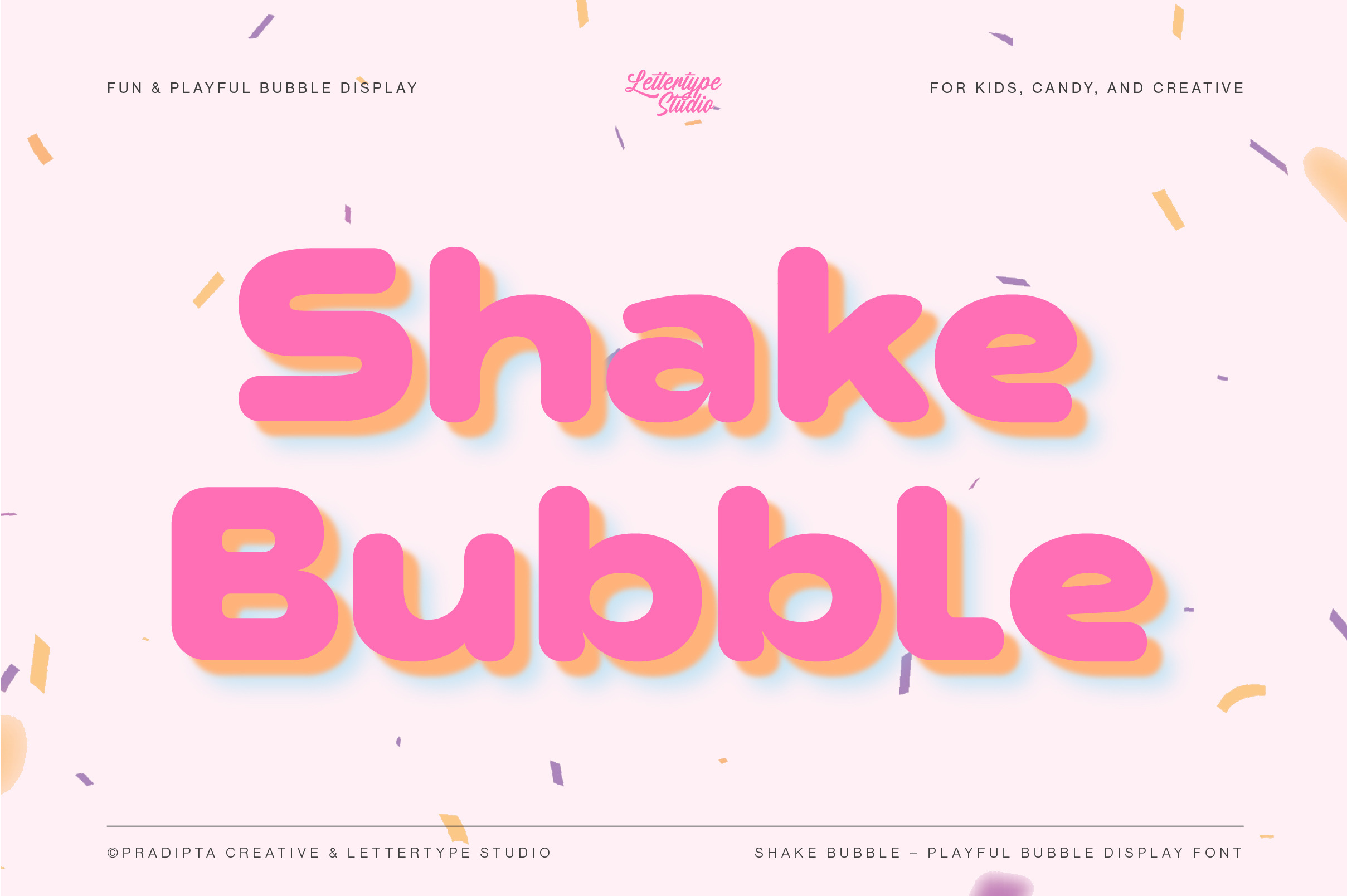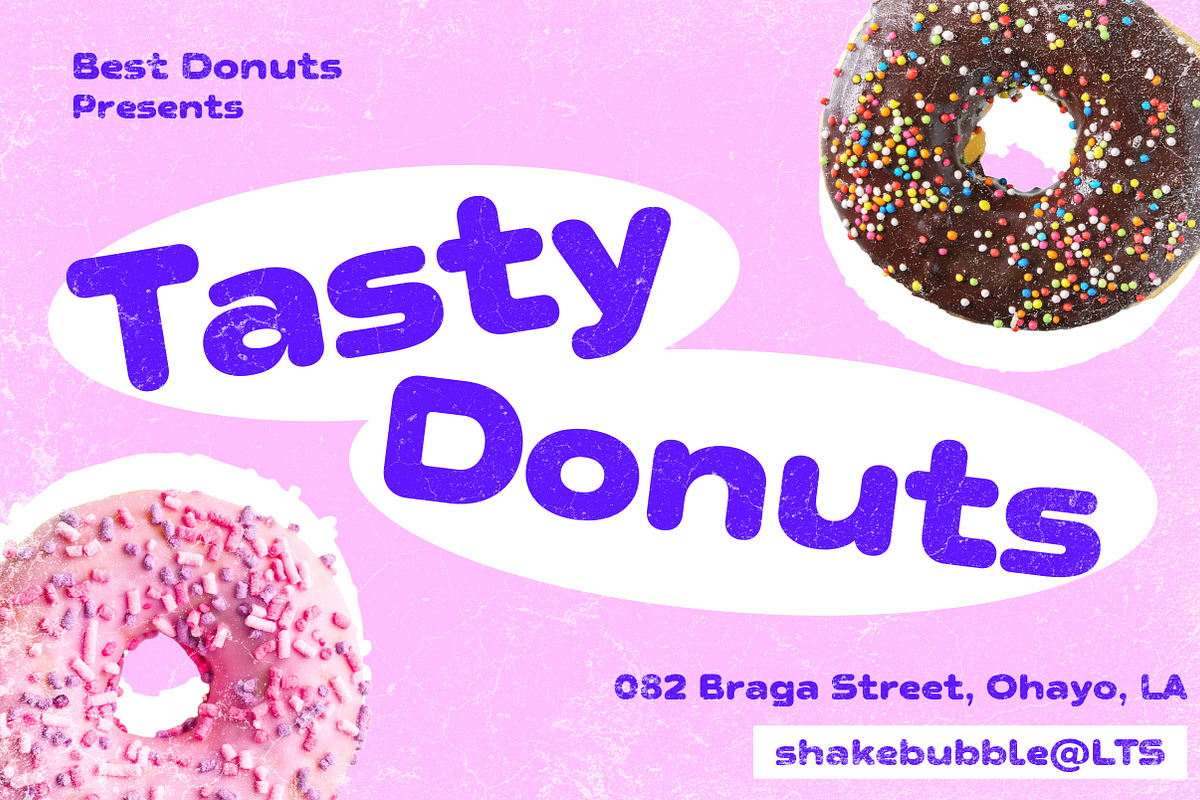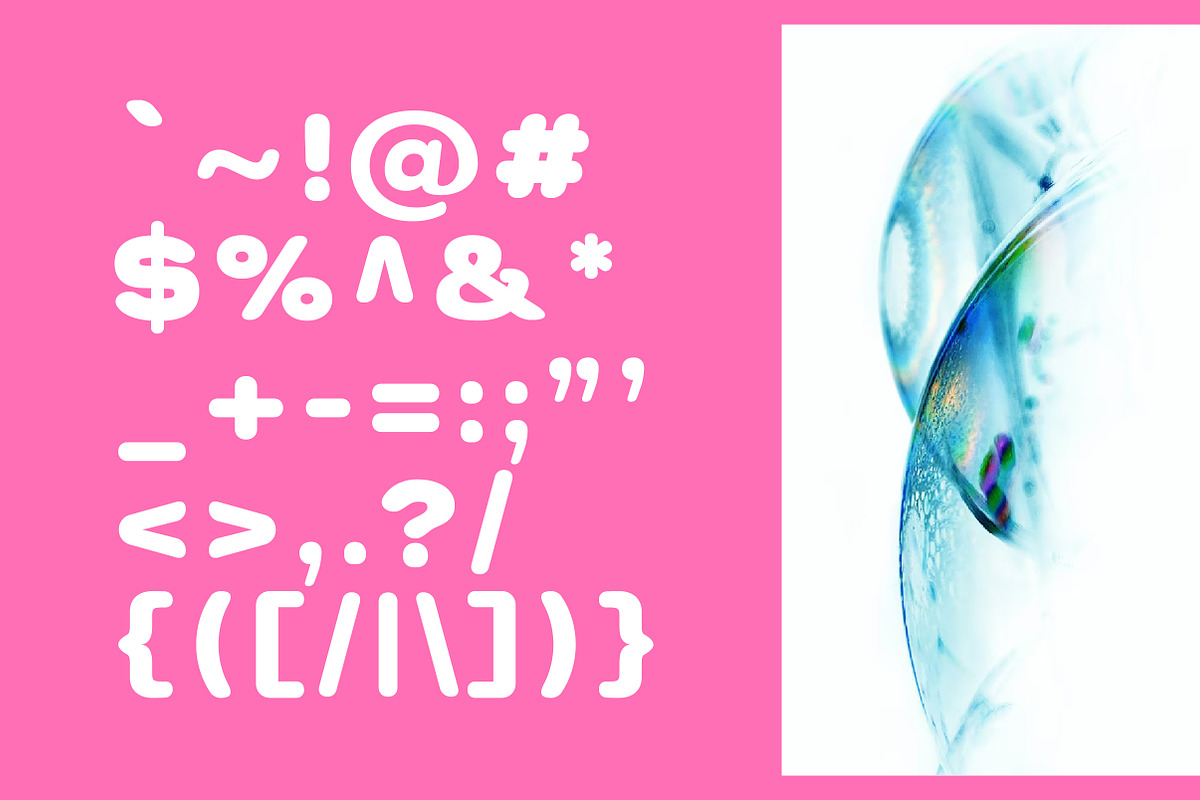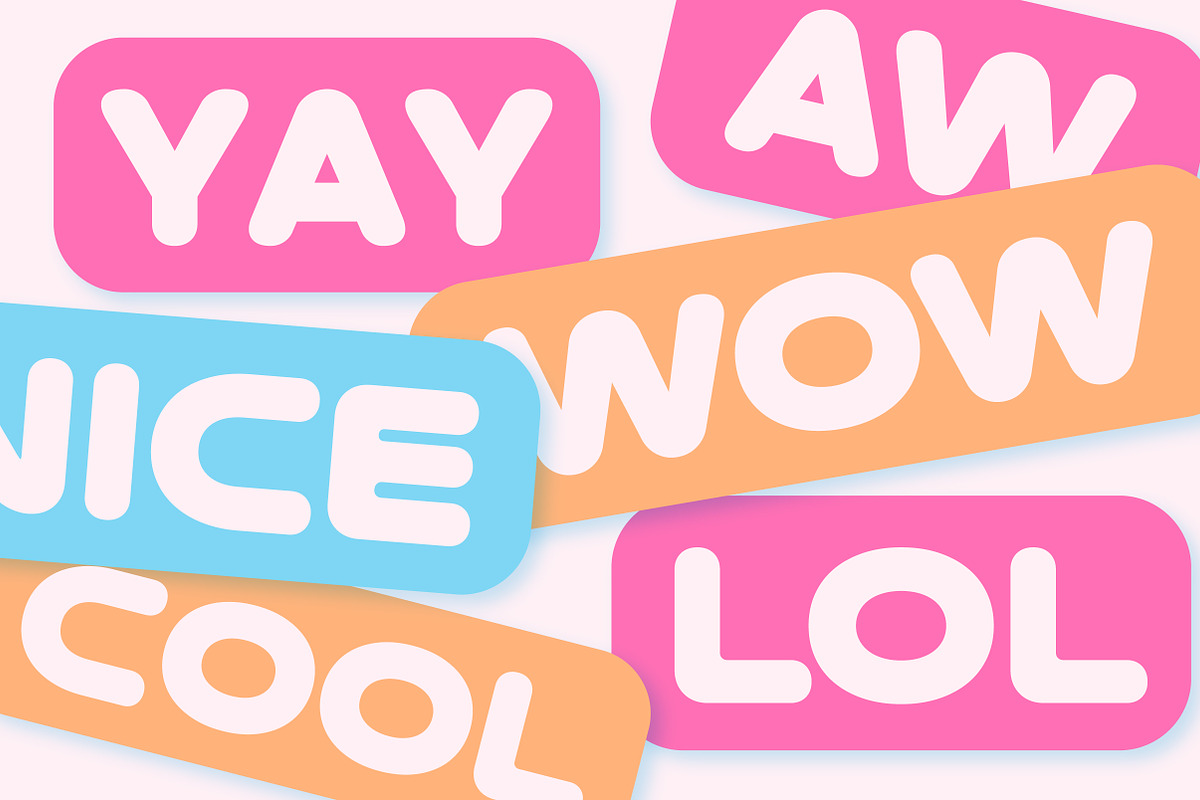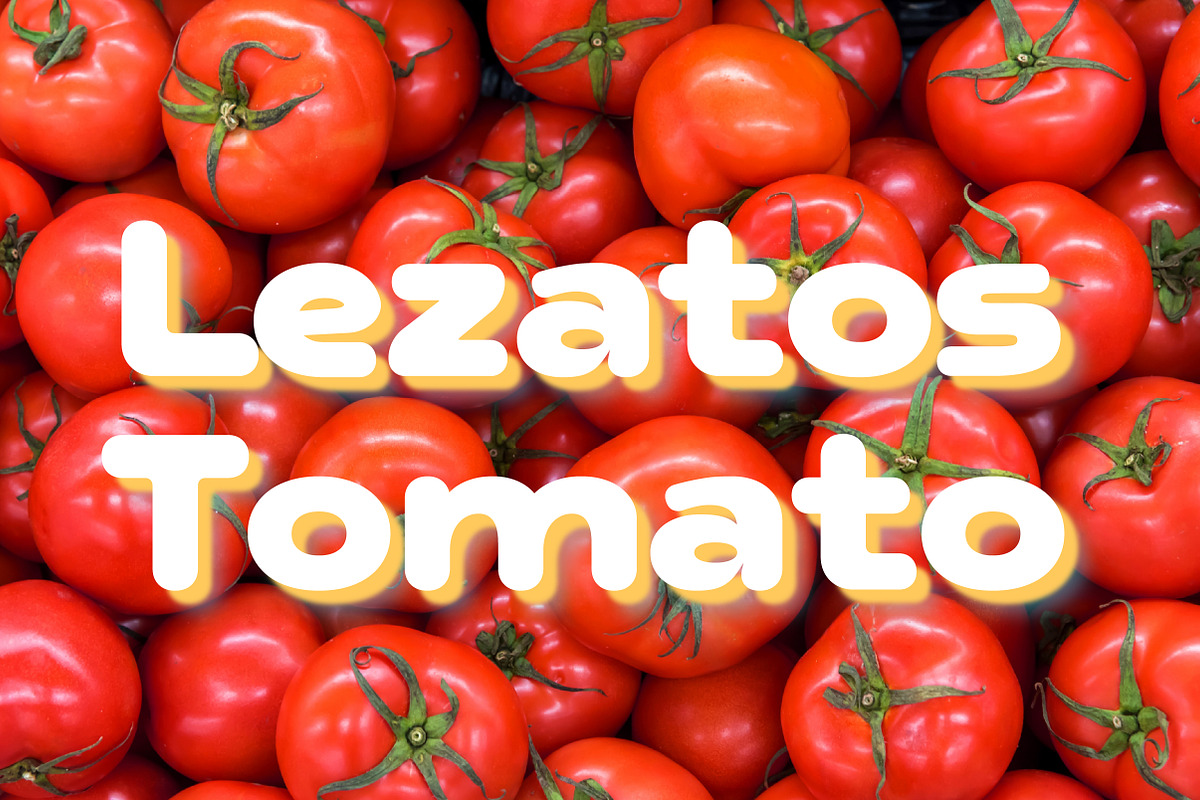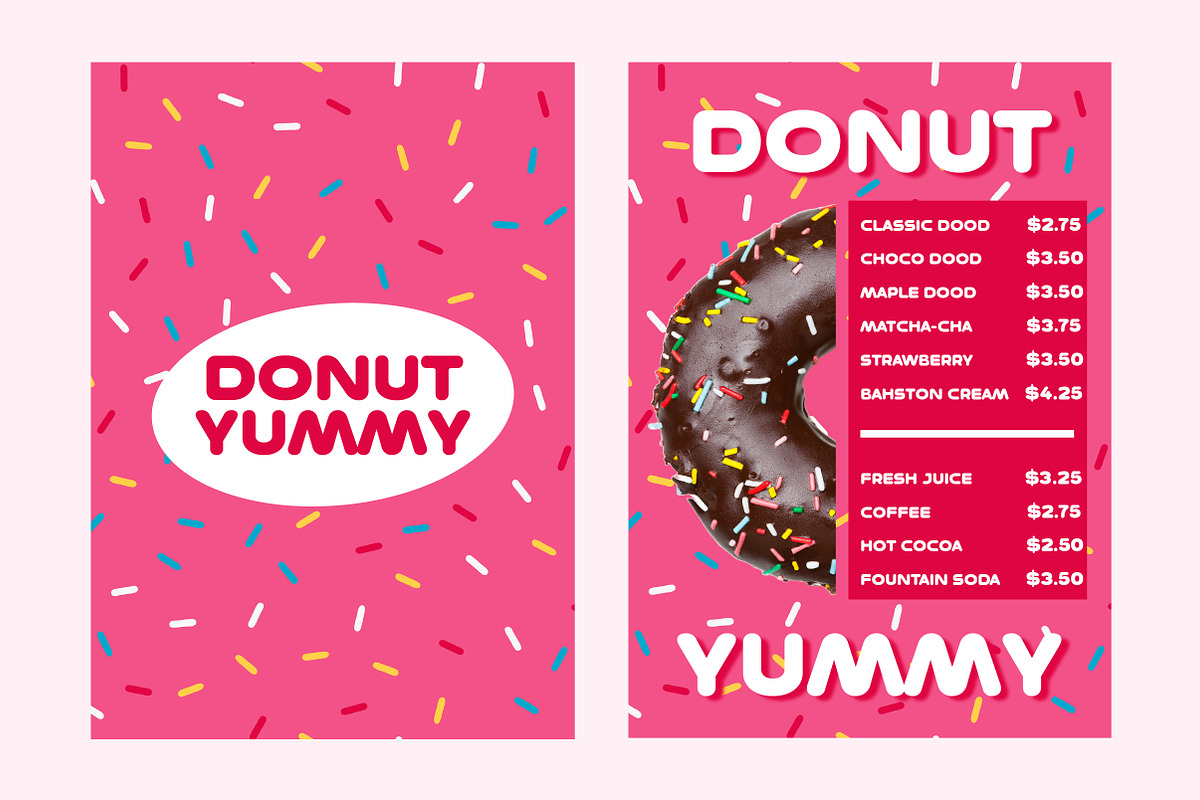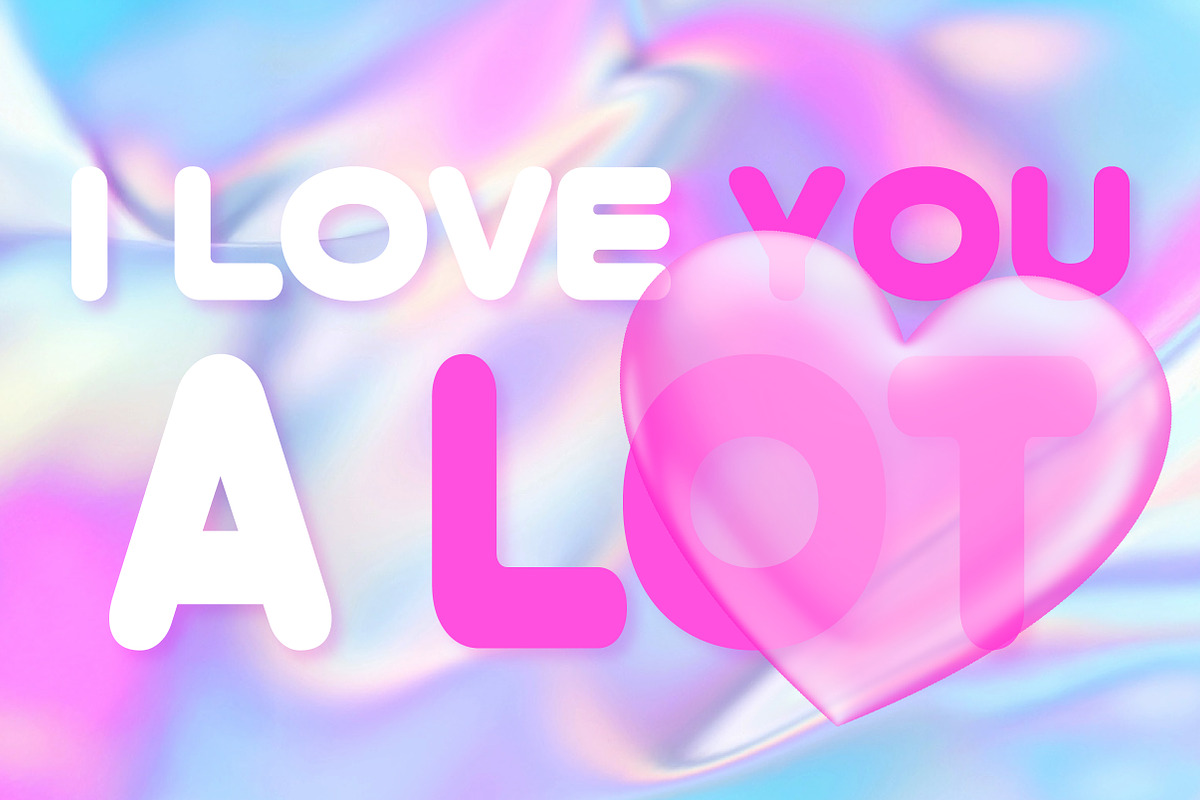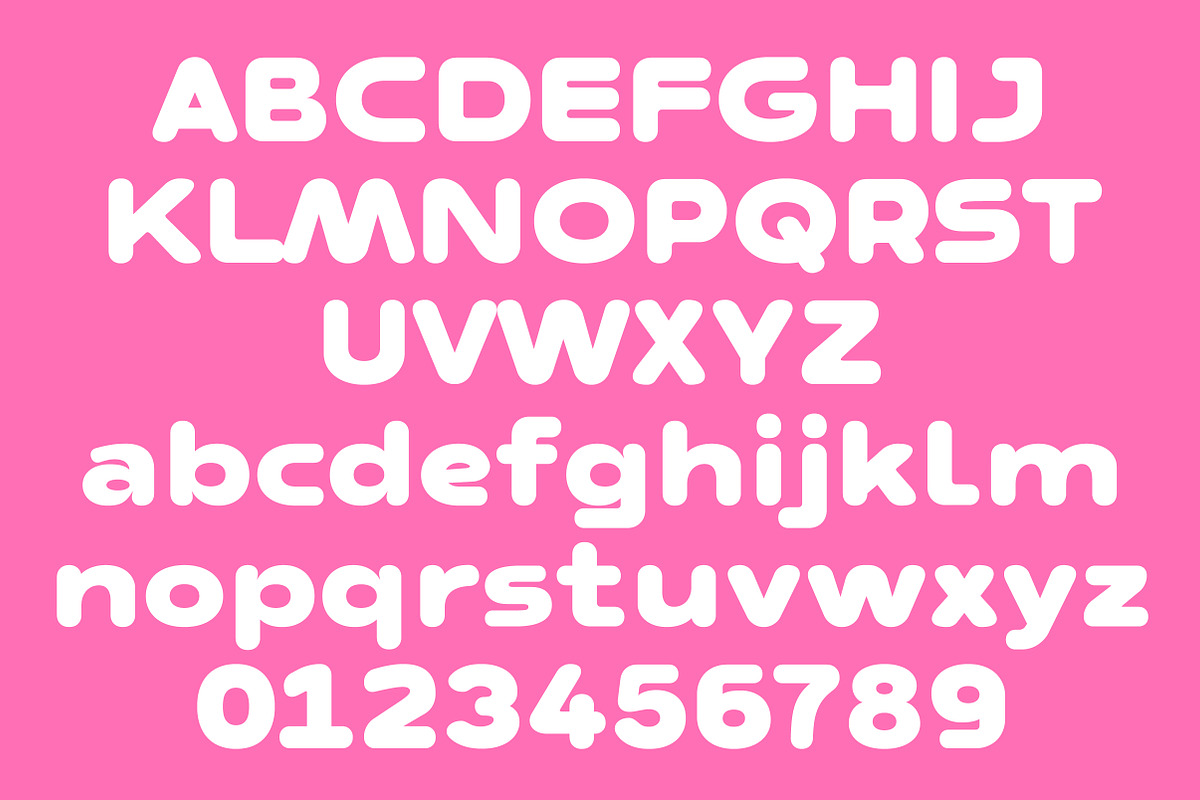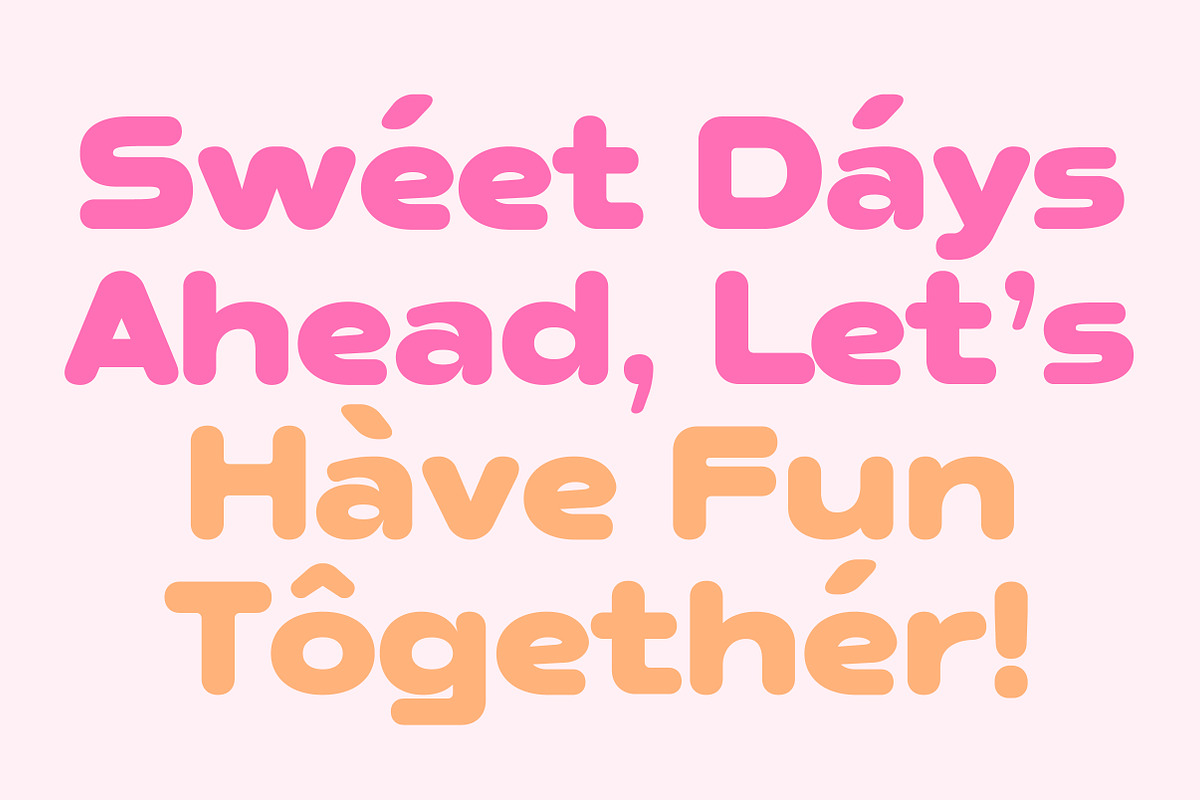
Shake Bubble – Playful Display Font
Introducing Shake Bubble, a playful and bold bubble font that brings a burst of joy to any design. With its thick, rounded shapes and bouncy personality, Shake Bubble is the perfect choice for children’s books, party invitations, candy packaging, Instagram posts, and any fun-loving branding project. Whether you're creating for kids or want to add a dose of cheerful charm, this font guarantees smiles!
Shake Bubble supports multilingual characters and includes both uppercase and lowercase letters, numbers, punctuation, and playful alternates to boost your creativity. From stickers and comic titles to birthday cards and YouTube thumbnails, Shake Bubble delivers a soft, bubbly touch that pops right off the screen. Let your design shake with joy!
Shake Bubble Features:
- 2 Styles
- Upright & Oblique
- 446 Glyphs Total
- 270+ Languages Support
- Children’s books, games & educational materials
- Candy, snack & toy packaging design
- Party invitations, birthday cards & event posters
- Playful logos, social media graphics & stickers
- Comic titles, YouTube thumbnails & fun merchandise